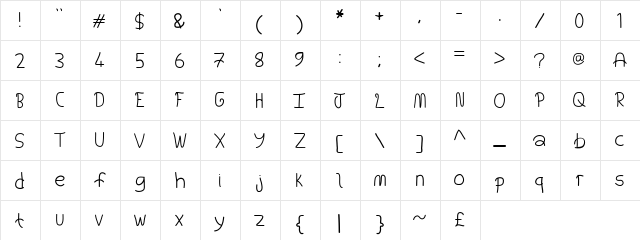
You're Still The One Regular
Design Context for You're Still The One Typeface
You're Still The One is a composed and adaptable typeface that performs quietly and consistently across a wide range of design contexts.